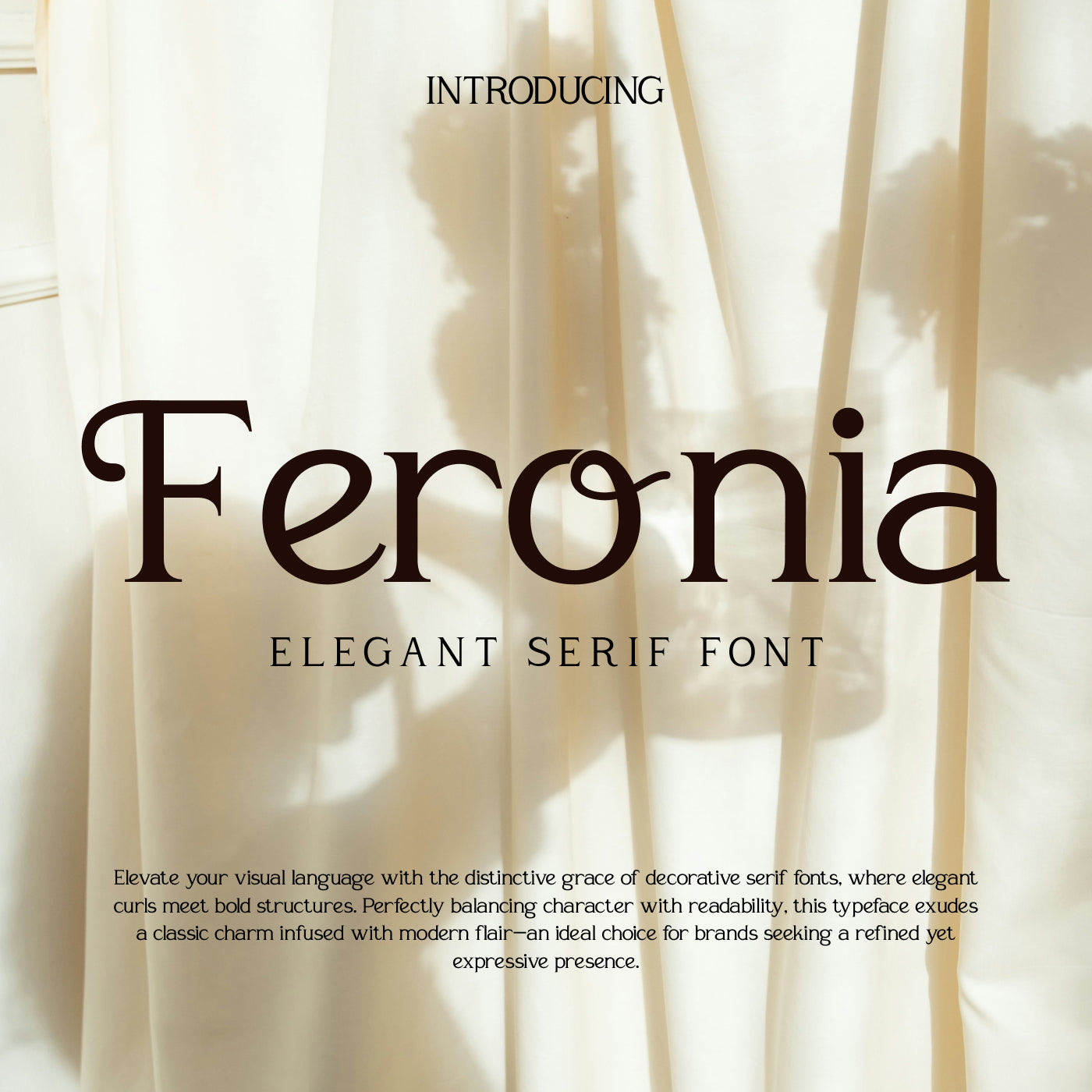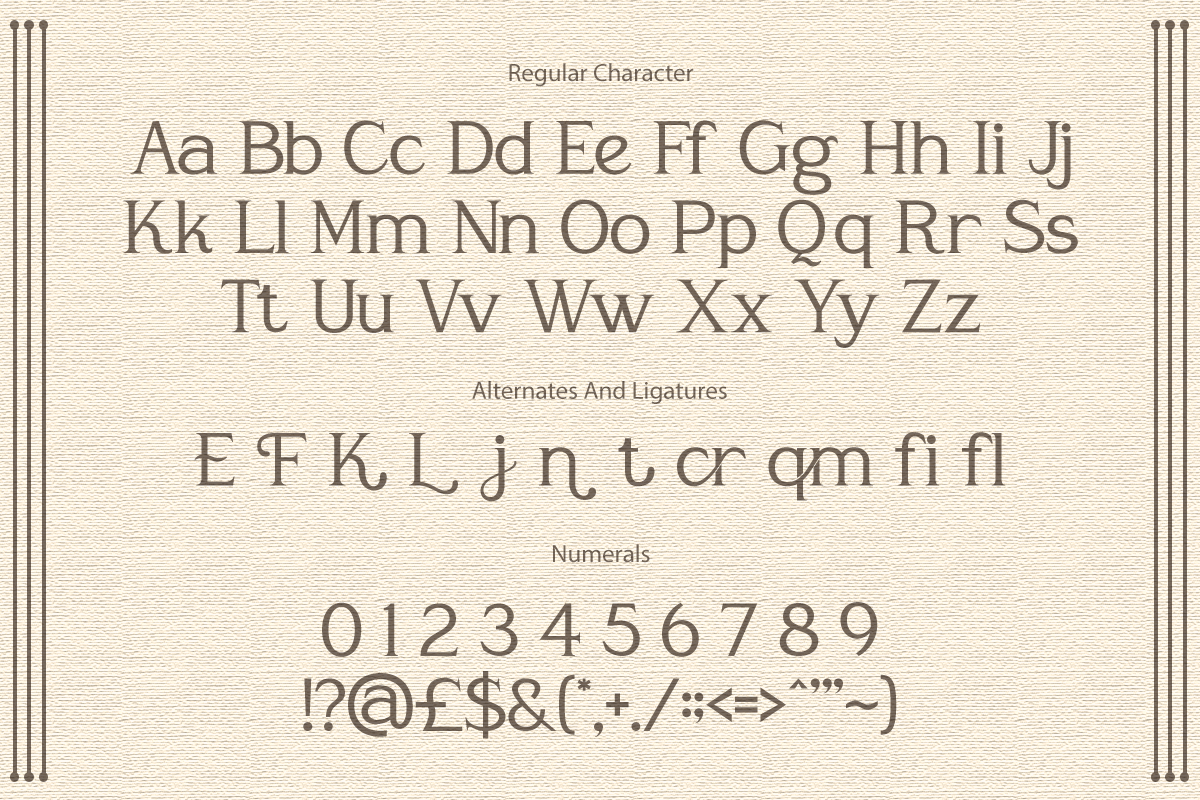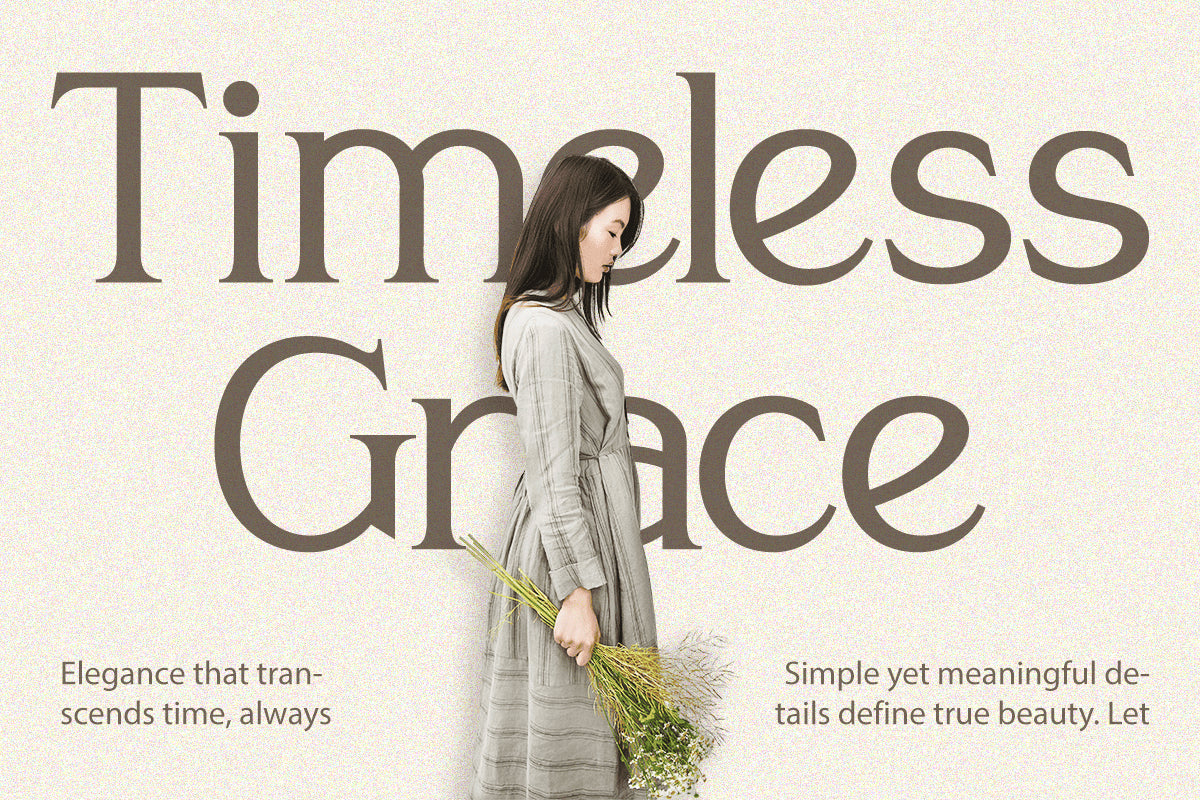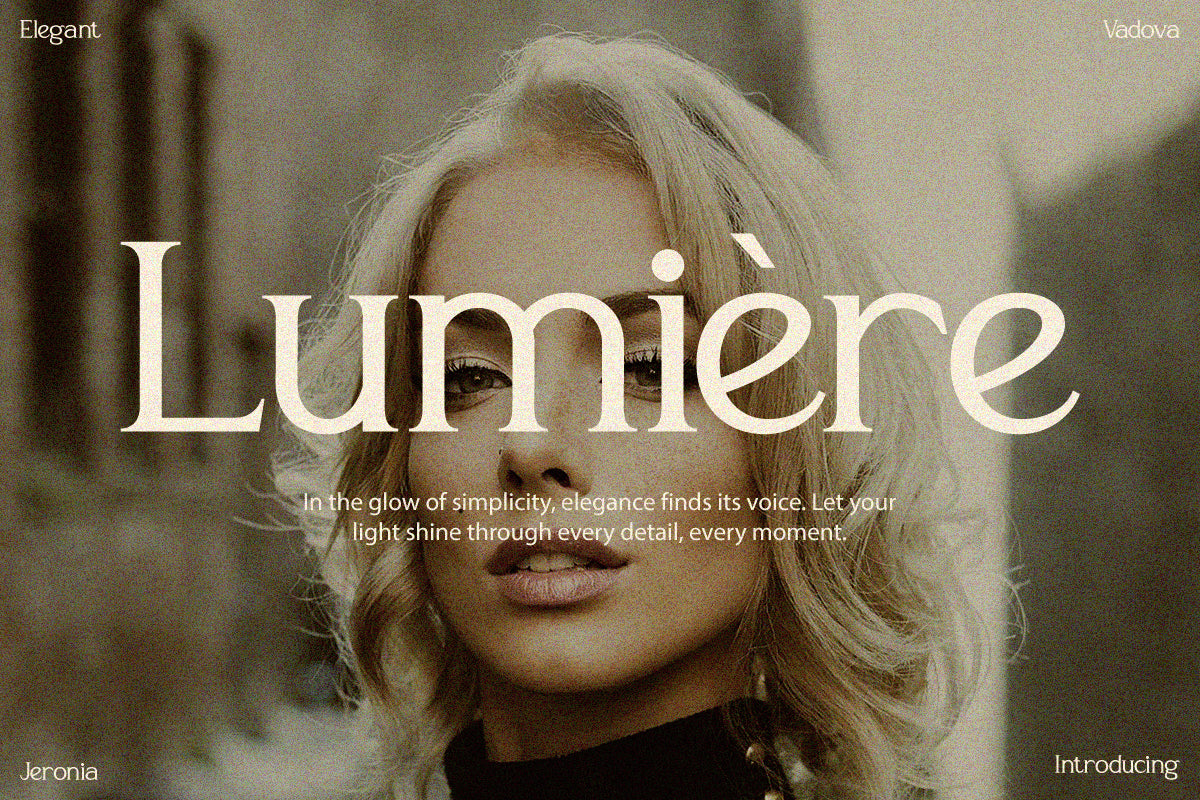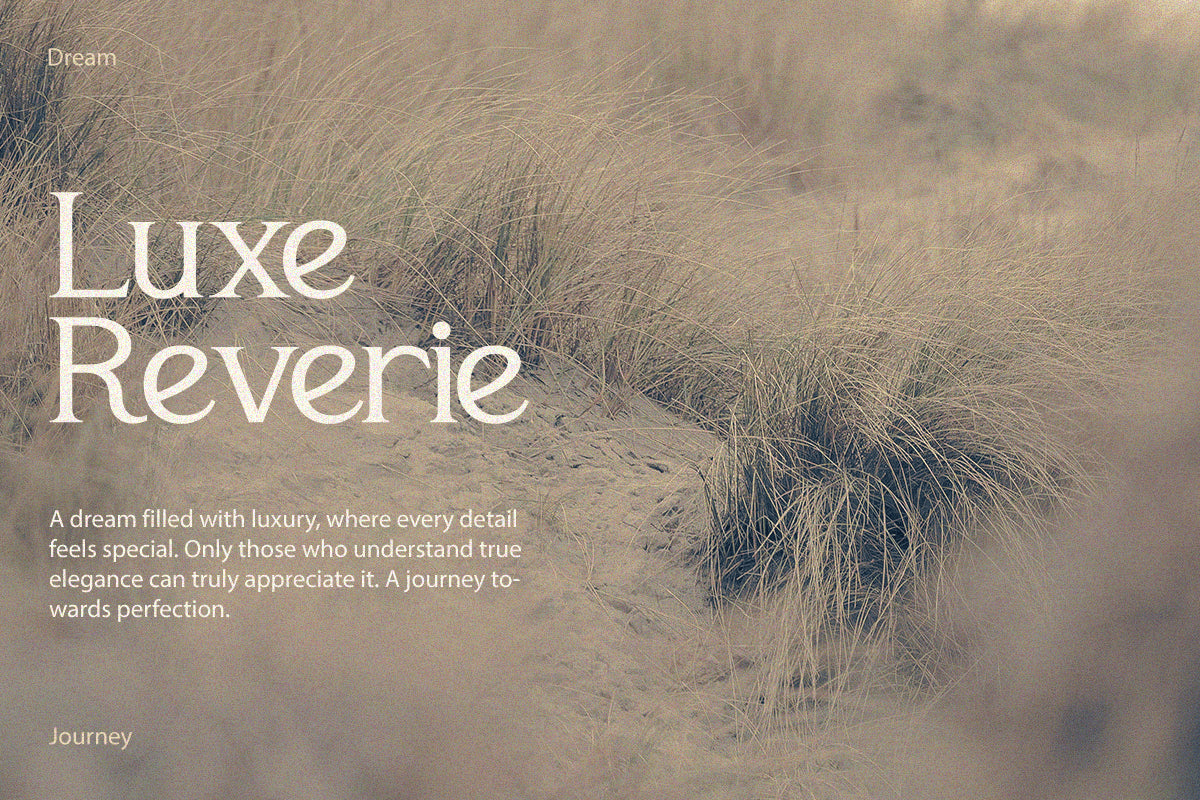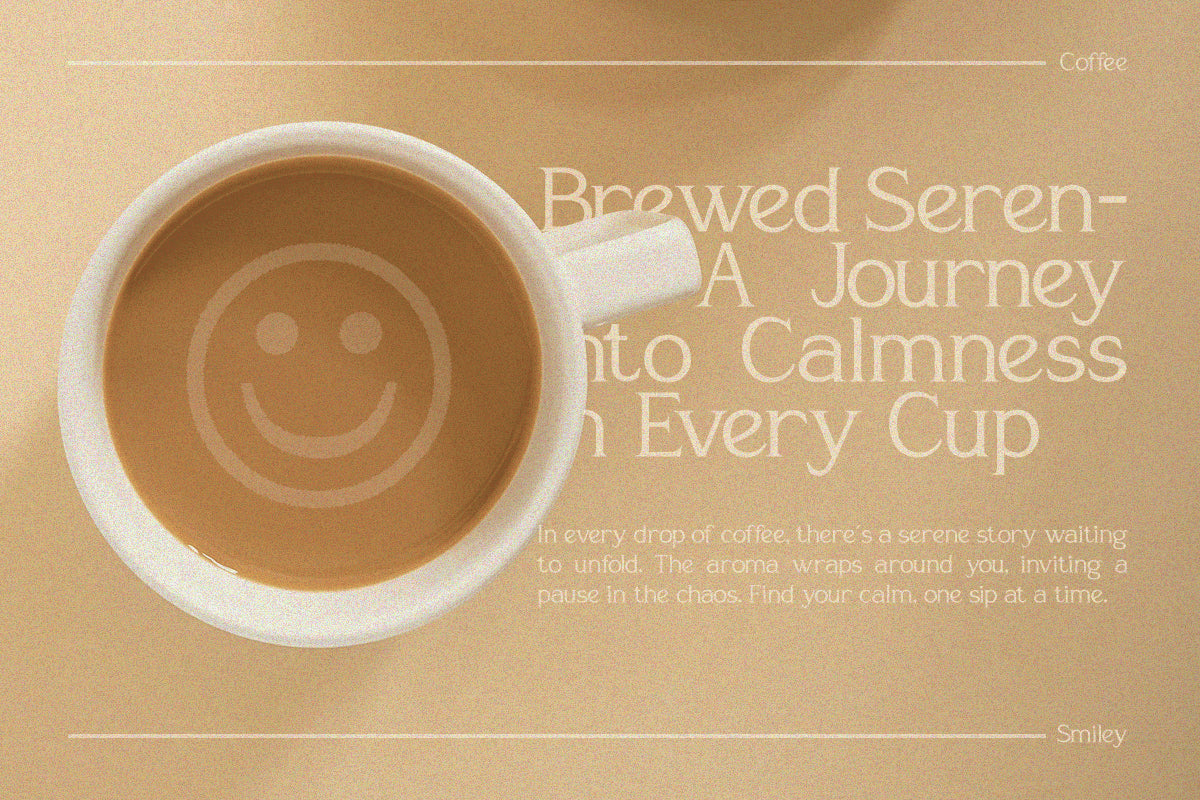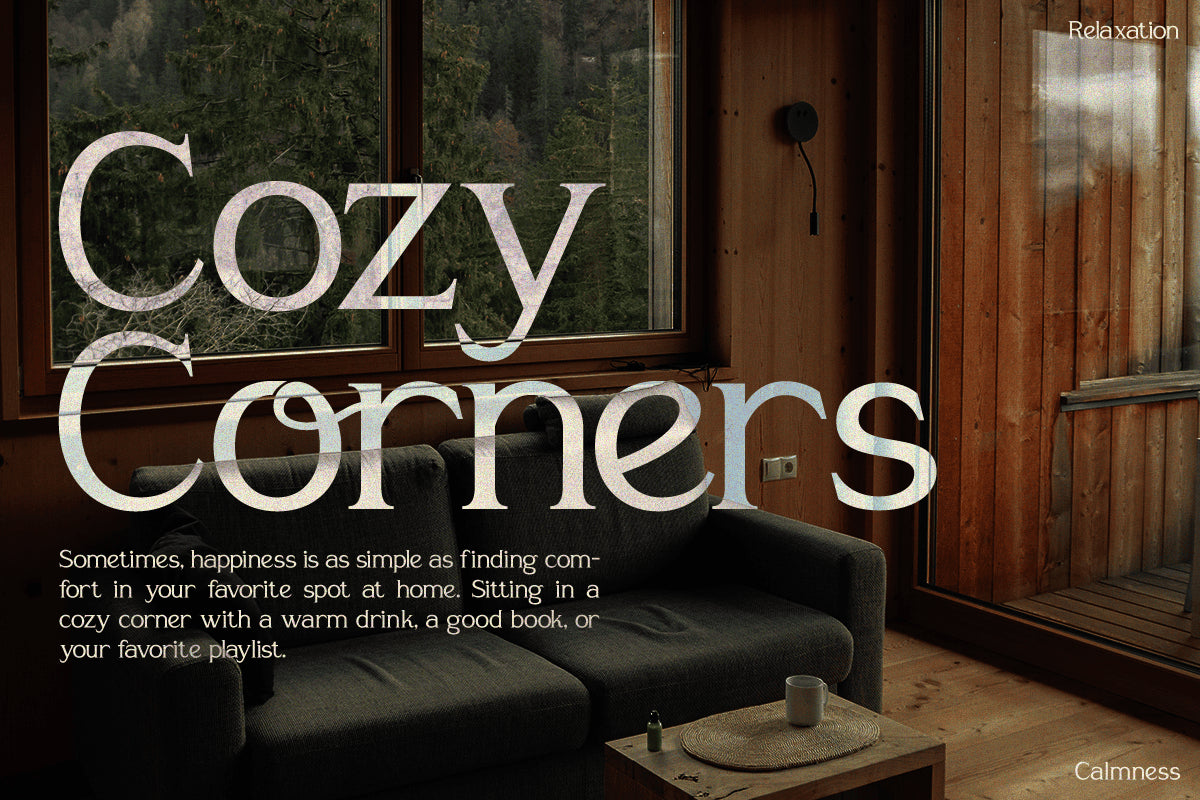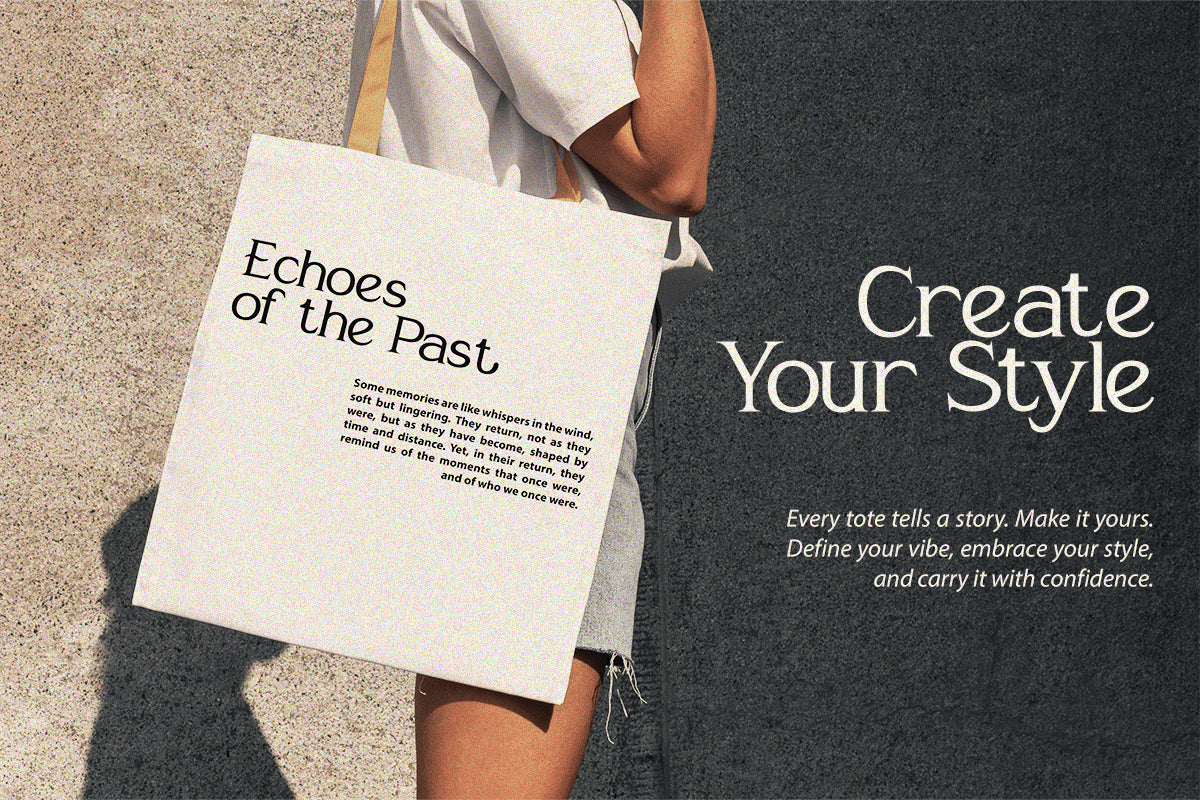
Feronia Elegant Serif Font
Feronia is an elegant serif font crafted for modern visual storytelling with a refined, minimalist aesthetic. Its timeless structure and delicate curves make it a versatile choice for branding, editorial layouts, and sophisticated product packaging. Designed to balance simplicity and elegance, Feronia adds a graceful touch to any project where design clarity and style are key.
Feronia is perfect for branding, logos, editorial designs, fashion, luxury marketing materials, packaging, and high-end products. Ideal for projects requiring a sophisticated and stylish aesthetic that demands both elegance and clarity. Suitable for fashion brands, boutique businesses, corporate luxury brands, and any design that needs to communicate prestige and refinement.